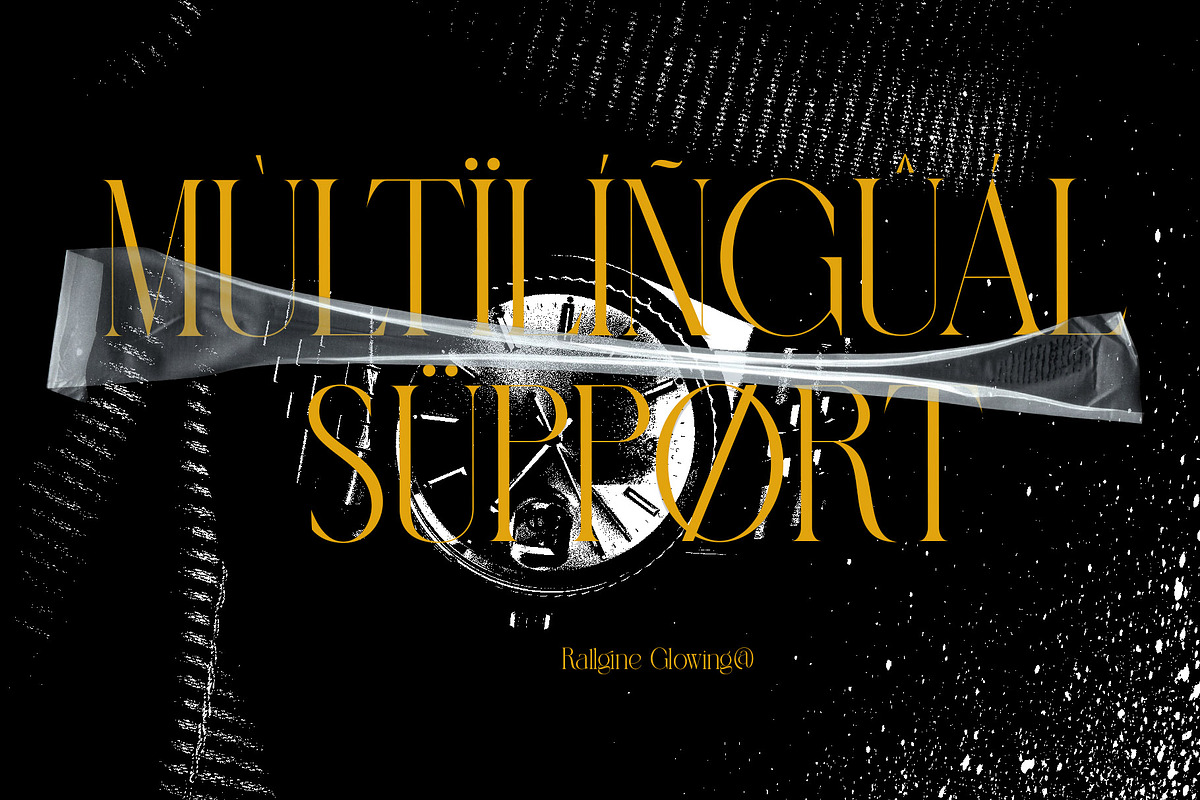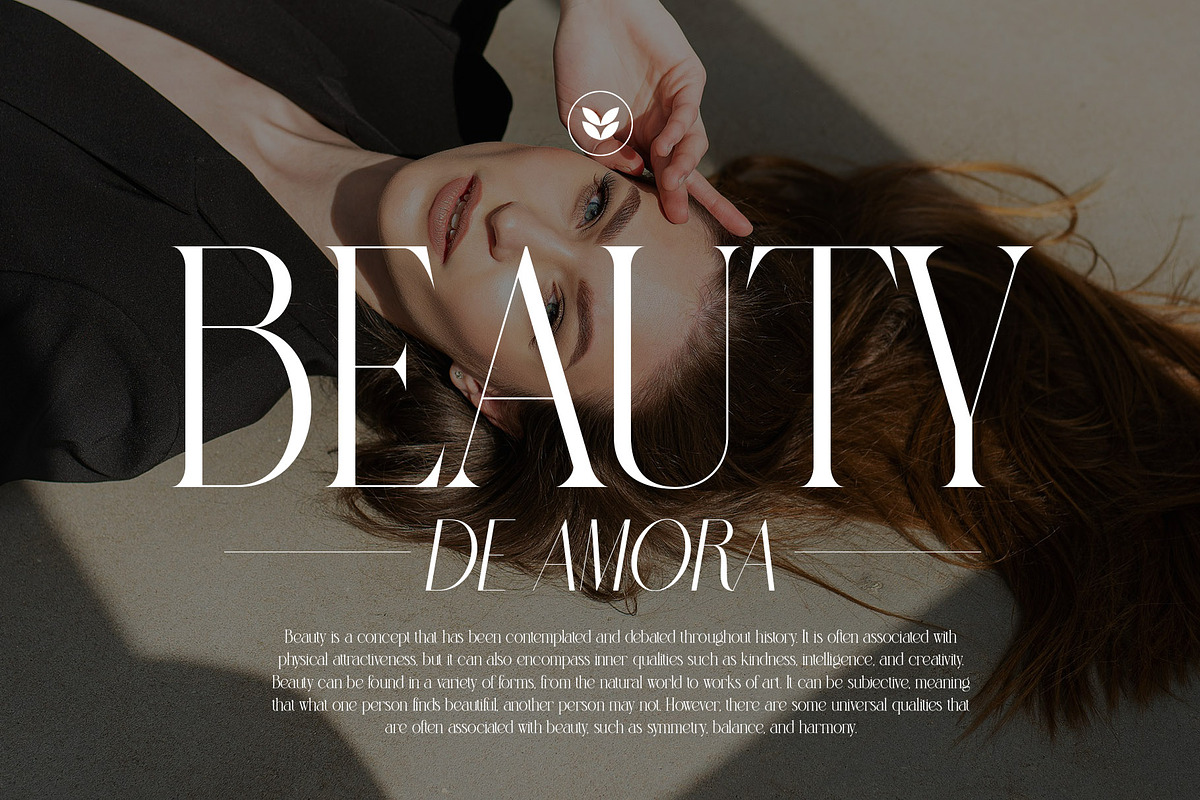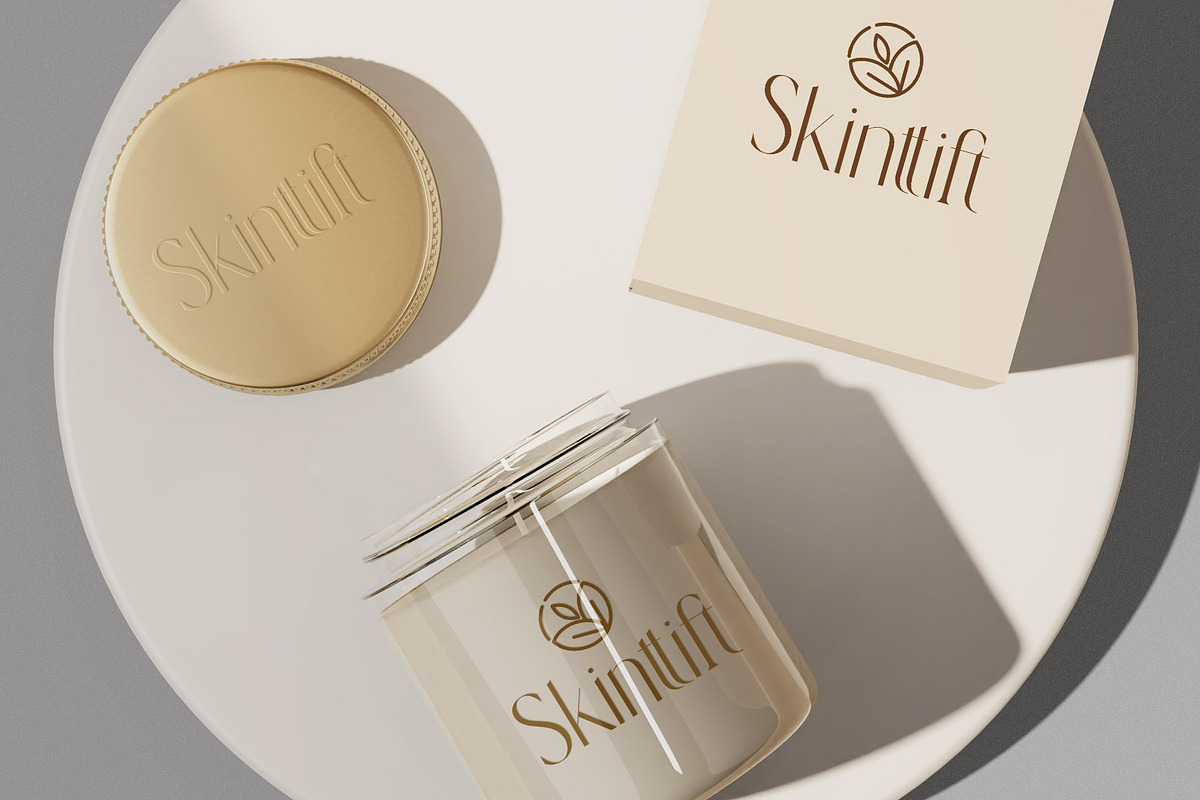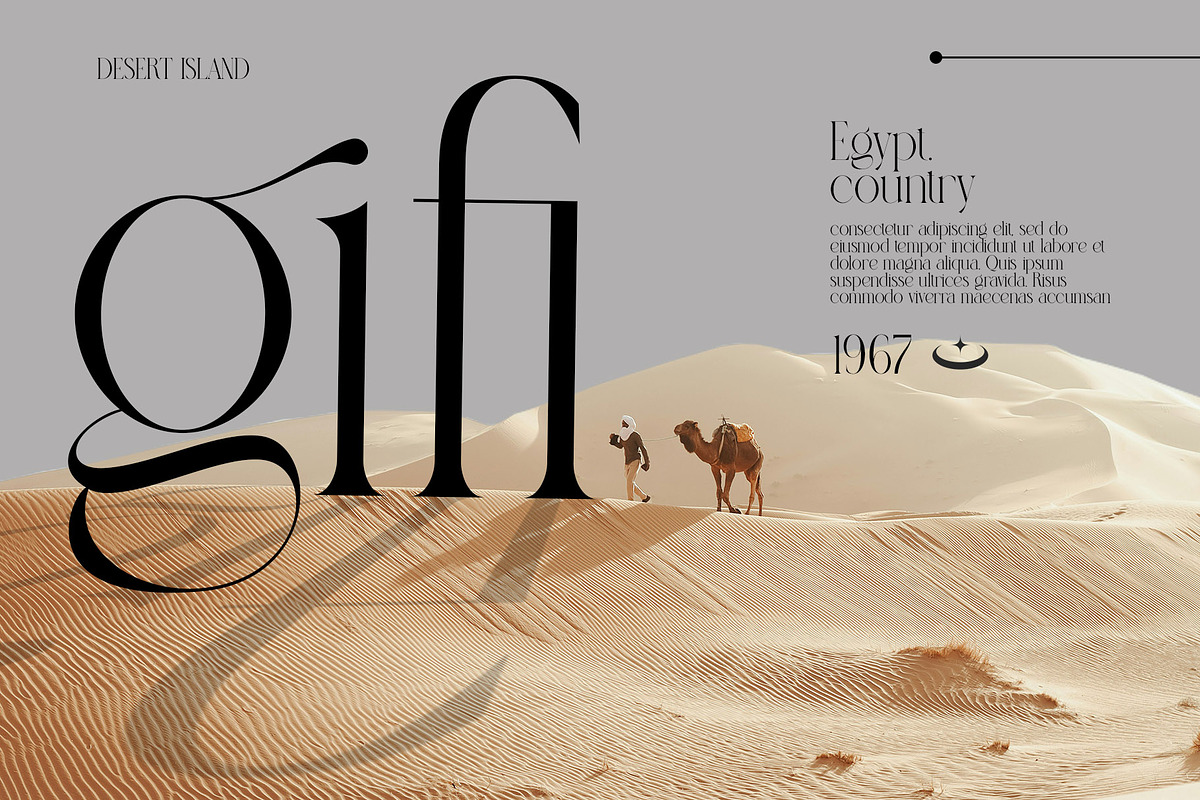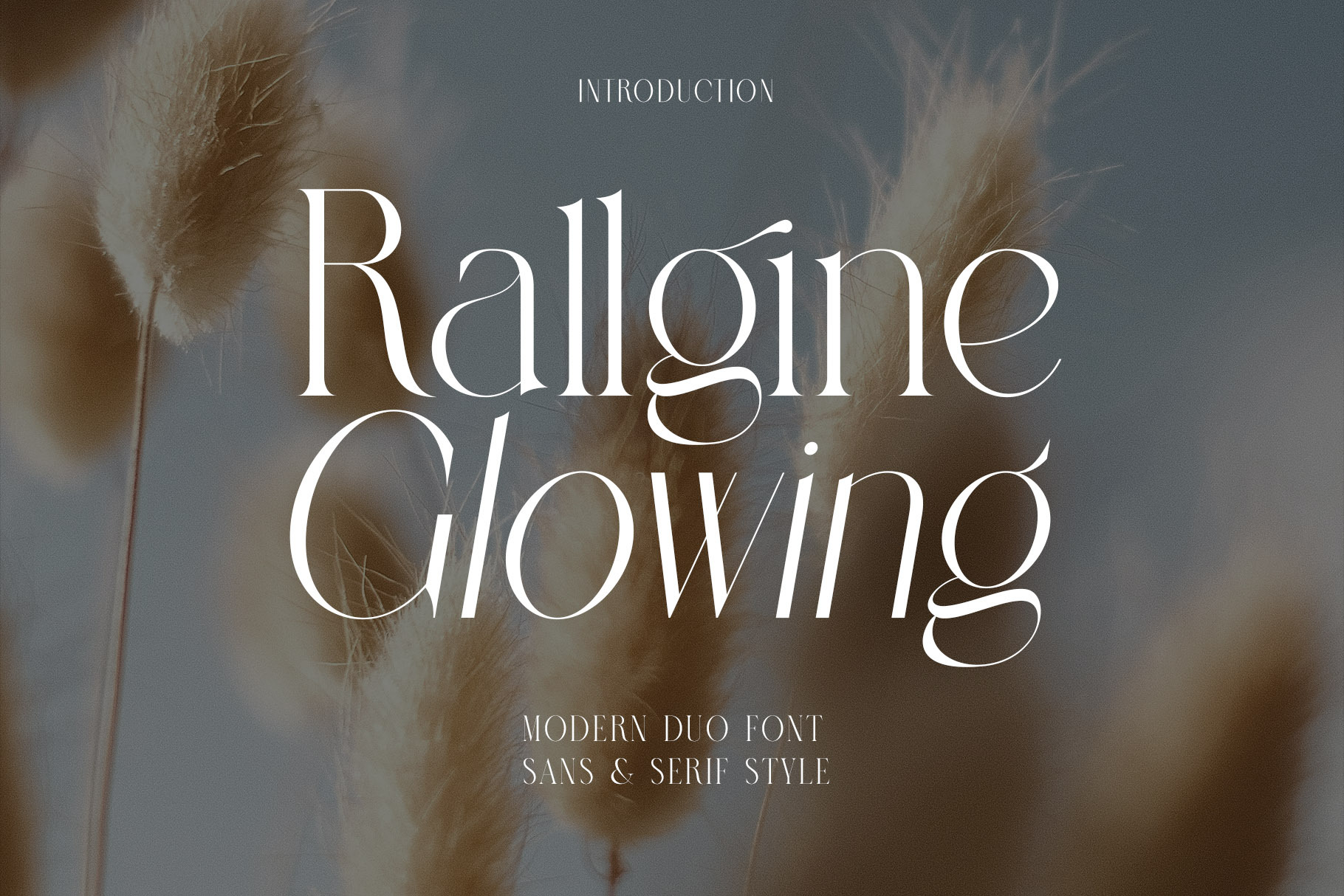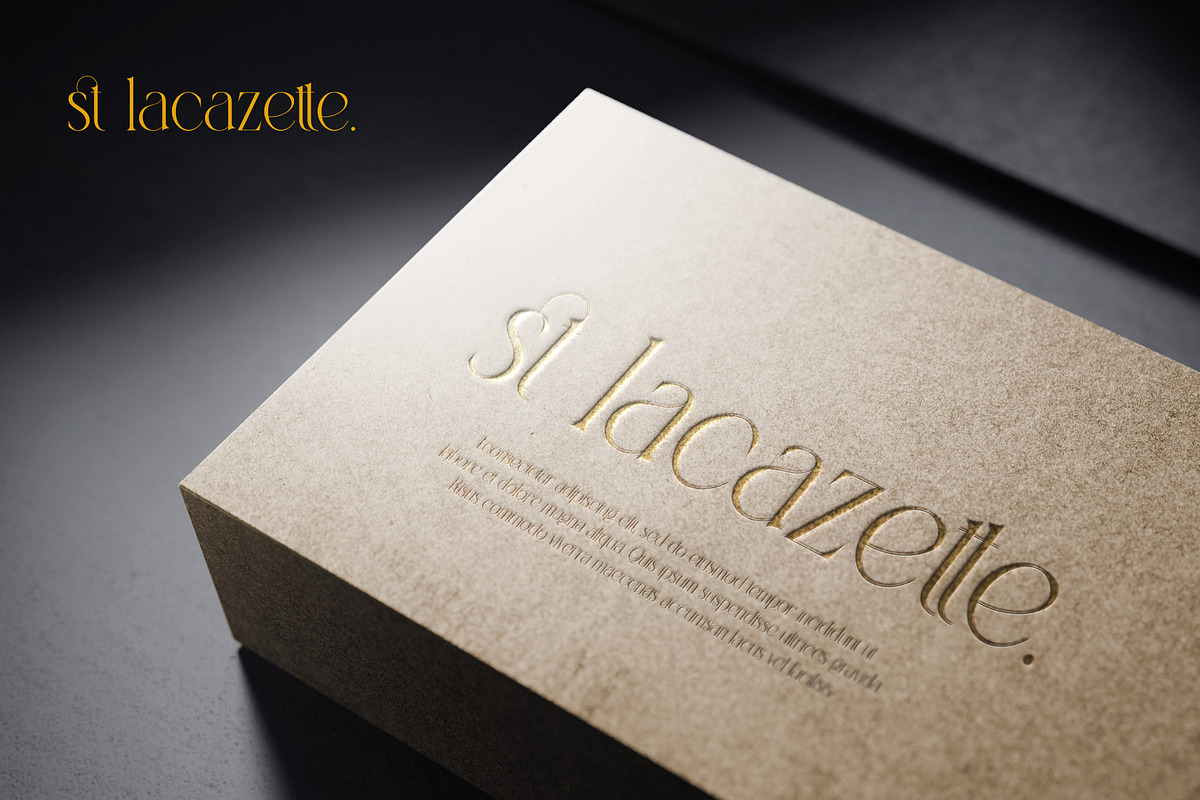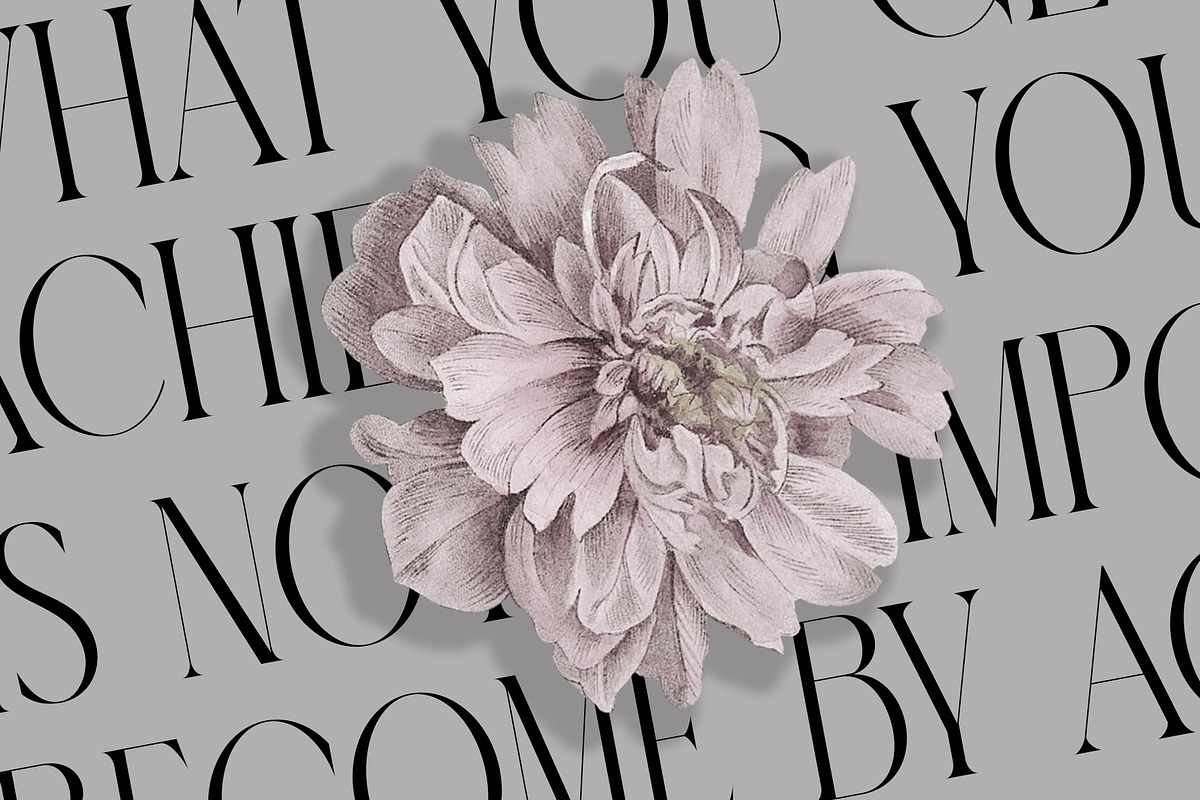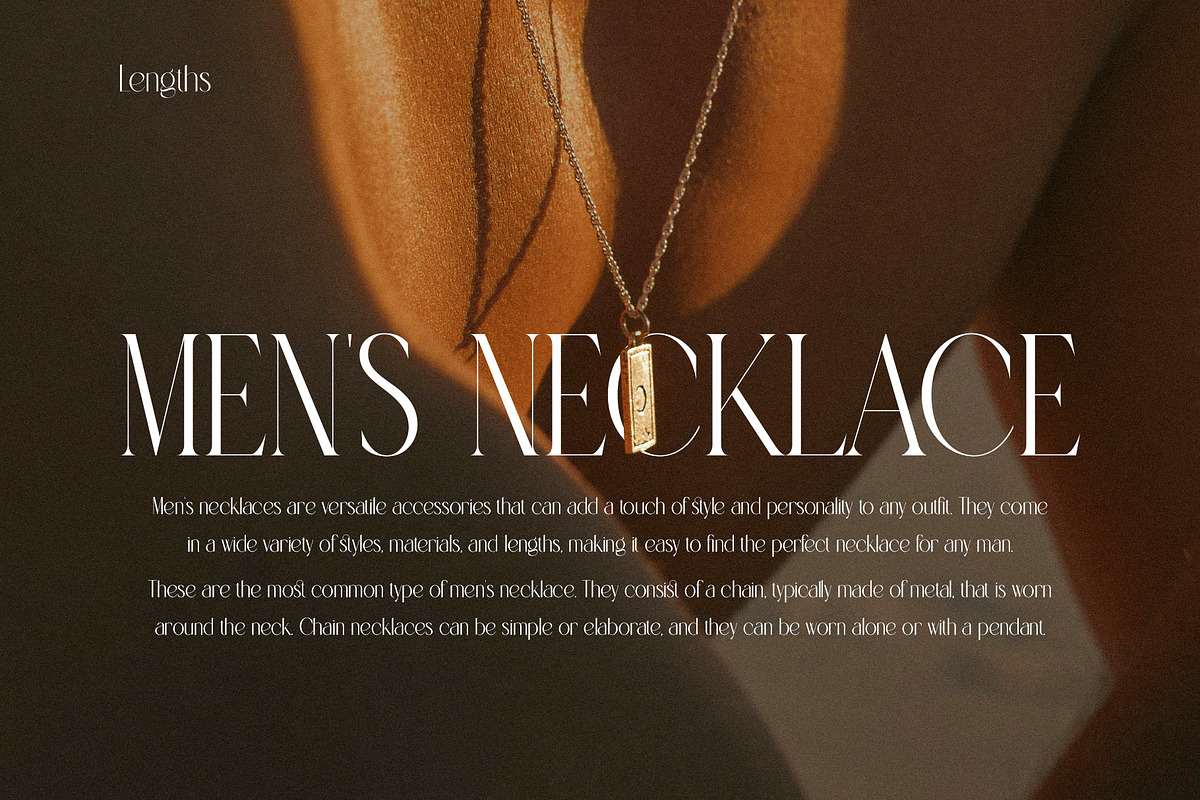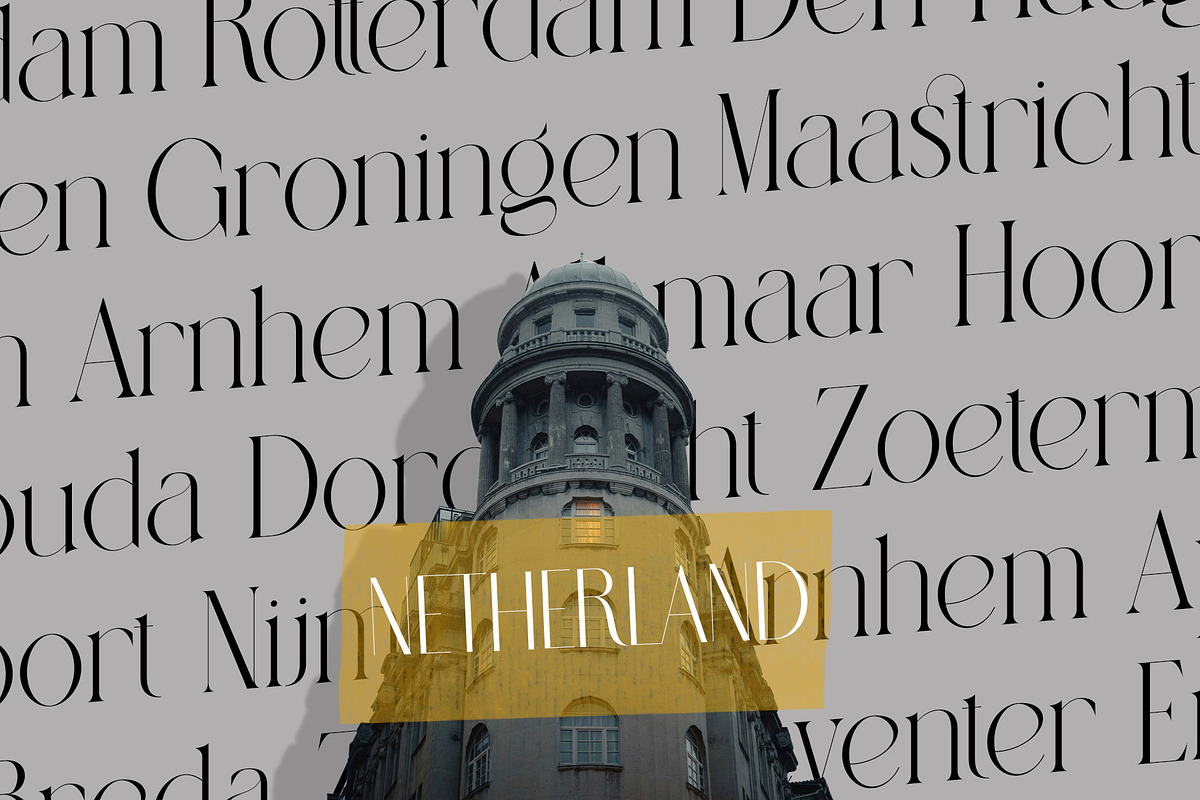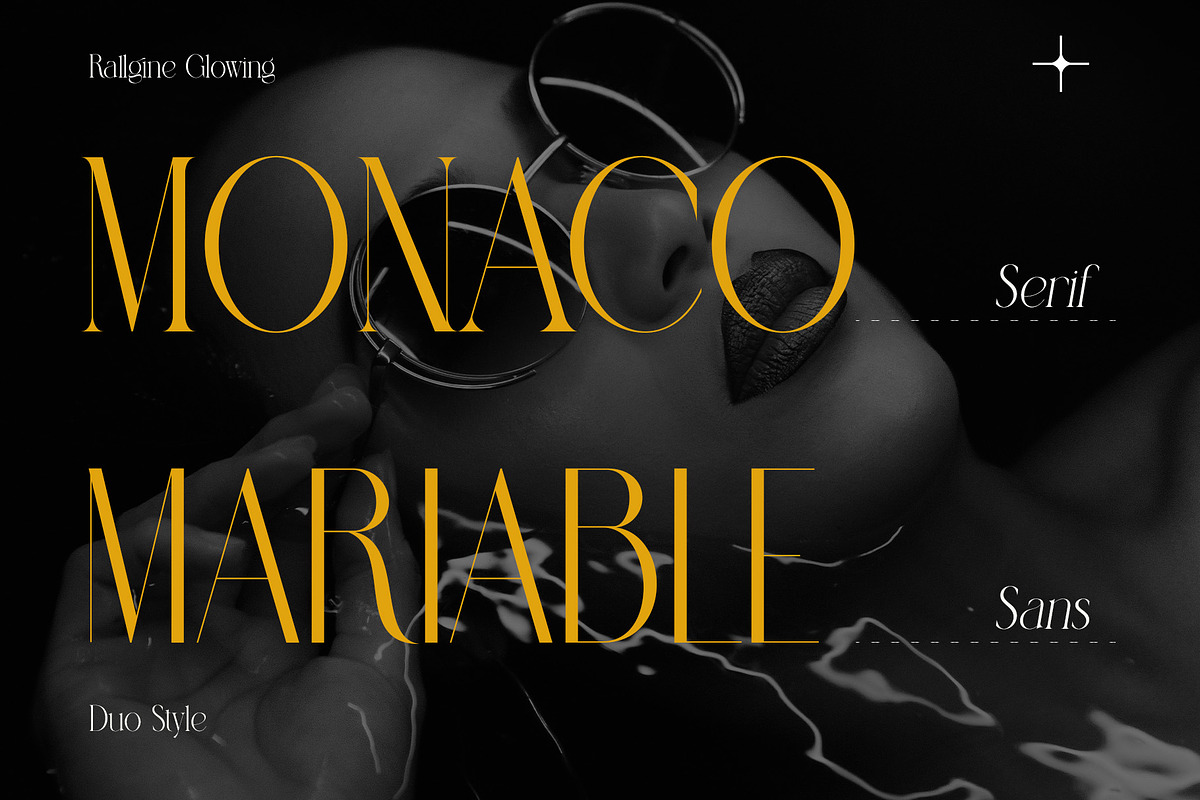
Rallgine Glowing Modern Duo Font
Rallgine Glowing is a modern and striking font designed to deliver a unique typographic experience, featuring two distinct styles—Sans and Serif—each with an expressive Italic variant. This font combines elegance and energy, offering versatile options for designers seeking both readability and visual appeal.
Rallgine Glowing Sans: The sans-serif style of Rallgine Glowing exudes a clean, sleek, and contemporary vibe. Its thin yet sturdy strokes make it perfect for modern, minimalistic designs that demand a sharp and efficient appearance. The Italic variant of this style adds a dynamic, flowing character, making it ideal for headers or elements in designs that require movement, while still maintaining excellent readability.
Rallgine Glowing Serif: The serif style of Rallgine Glowing brings a touch of classic elegance with its beautifully crafted serifs. It strikes a balance between formality and modernity, making it perfect for designs that need a professional yet stylish edge. The Italic variant of the serif style adds an artistic, dramatic flair, enhancing the font's fluidity and elegance without sacrificing its authoritative presence.
Rallgine Glowing is the perfect font for a wide range of design projects, from branding to digital media. With its two main styles and italic variants, it provides creative flexibility and the ability to craft captivating designs with a glowing, distinctive touch.